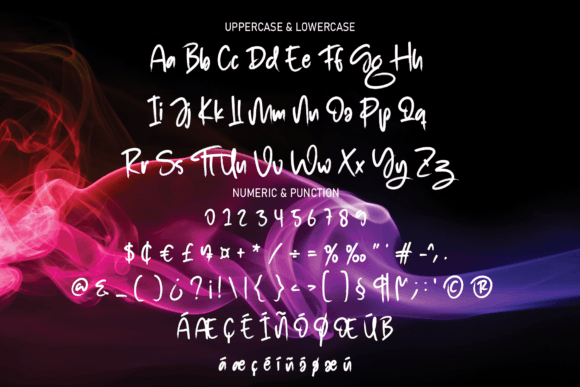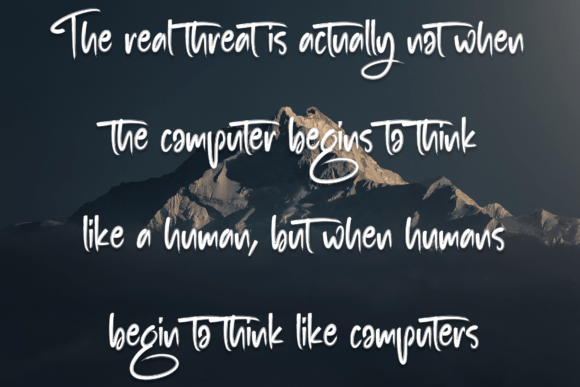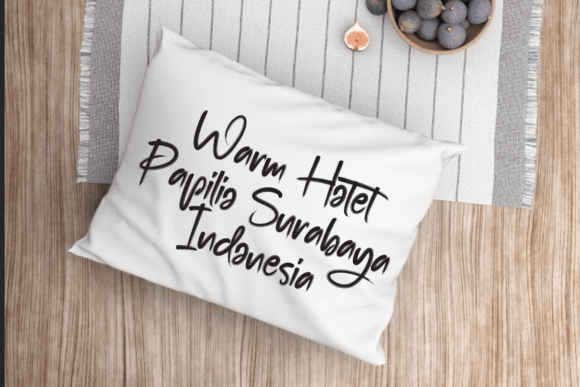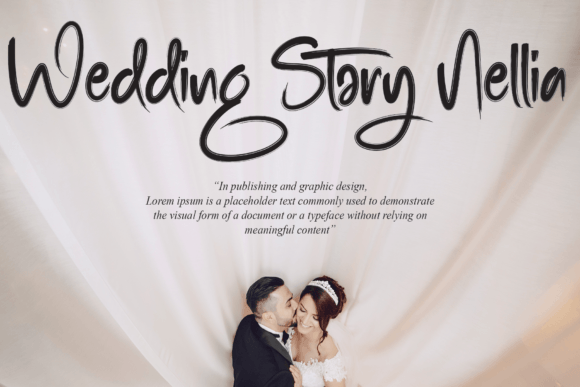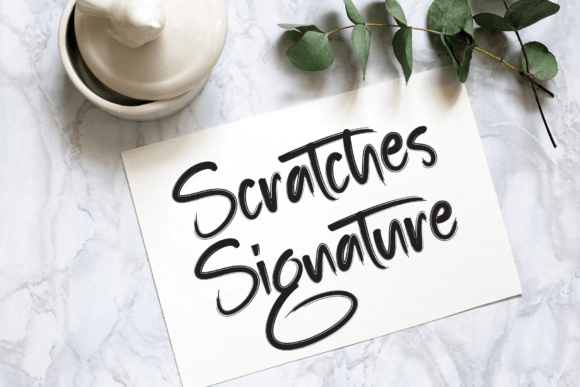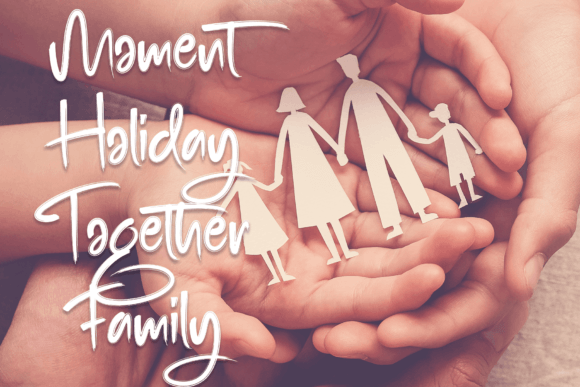
Introducing Brush Signature Font: Elevate Your Designs with Elegant Handwritten Style
In the world of design, fonts play a crucial role in conveying the tone and personality of a project. For those seeking a touch of elegance and sophistication, Brush Signature Font is an excellent choice. This versatile font is perfect for a wide range of applications, from wall displays and wedding invitations to social media post logos, advertisements, and product packaging.
What is Brush Signature Font?
Brush Signature Font is a beautifully crafted font that mimics the look of handwritten letters. Its latest style letters are designed to add a touch of warmth and personality to any project. With its elegant and flowing script, Brush Signature Font is ideal for designers and crafters looking to create unique and eye-catching designs.
Brush Signature Font is a versatile font that can be used in a variety of design projects, including:
- Wall Displays: Add a touch of elegance to your wall displays with Brush Signature Font. Its large and bold letters make it perfect for creating eye-catching posters, banners, and signs.
- Wedding Invitations: Make your wedding invitations truly special with Brush Signature Font. Its elegant and sophisticated script is perfect for formal wedding invitations, save-the-date cards, and thank-you notes.
- Social Media Post Logos: Create stunning social media post logos with Brush Signature Font. Its unique and eye-catching letters will help your brand stand out on social media platforms.
- Advertisements: Use Brush Signature Font to create beautiful and effective advertisements. Its elegant script is perfect for creating eye-catching ads that grab attention.
- Product Packaging: Add a touch of elegance to your product packaging with Brush Signature Font. Its beautiful letters will make your products stand out on store shelves.
- Product Designs: Use Brush Signature Font to create stunning product designs. Its elegant script is perfect for creating unique and eye-catching designs for products such as mugs, t-shirts, and phone cases.
- Labels: Create beautiful labels with Brush Signature Font. Its elegant letters are perfect for labeling products, files, and folders.
- Photography: Use Brush Signature Font to create beautiful watermarks for your photos. Its elegant script will add a touch of sophistication to your images.
- Invitations: Create stunning invitations with Brush Signature Font. Its elegant letters are perfect for formal and informal events.
- Stationery: Use Brush Signature Font to create beautiful stationery. Its elegant script is perfect for creating unique and eye-catching letterheads, envelopes, and notecards.
Why Choose Brush Signature Font?
There are many reasons why Brush Signature Font is an excellent choice for designers and crafters. Here are a few:
- Elegant and Sophisticated: Brush Signature Font has an elegant and sophisticated script that adds a touch of warmth and personality to any project.
- Versatile: Brush Signature Font is a versatile font that can be used in a wide range of design projects.
- Easy to Read: Brush Signature Font is easy to read, making it perfect for body text and headings.
- Unique: Brush Signature Font has a unique and eye-catching script that will make your designs stand out.
Tips for Using Brush Signature Font
Here are a few tips for using Brush Signature Font:
- Use it for Headings: Brush Signature Font is perfect for headings and titles. Use it to create eye-catching headings that grab attention.
- Pair it with Other Fonts: Brush Signature Font can be paired with other fonts to create a unique and eye-catching design.
- Experiment with Colors: Brush Signature Font looks great in a variety of colors. Experiment with different colors to find the one that works best for your project.
In conclusion, Brush Signature Font is a beautiful and versatile font that is perfect for designers and crafters looking to add a touch of elegance and sophistication to their projects. Its elegant script, versatility, and ease of use make it an excellent choice for a wide range of design projects.